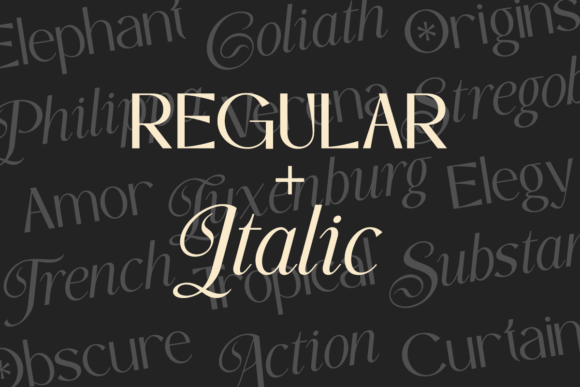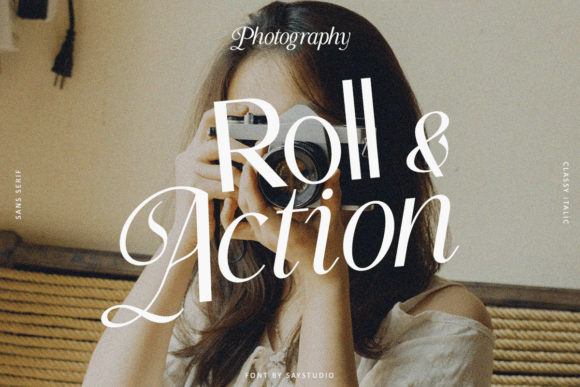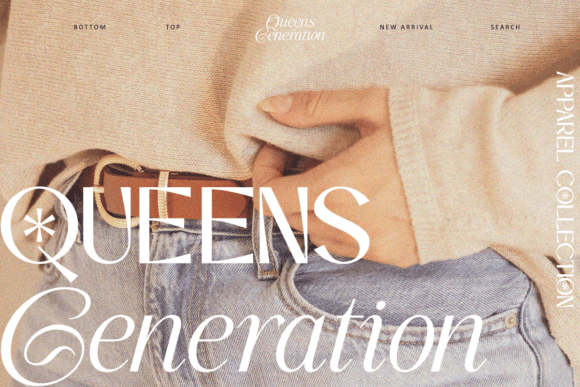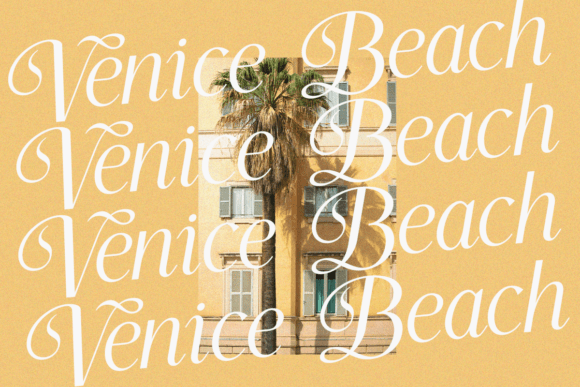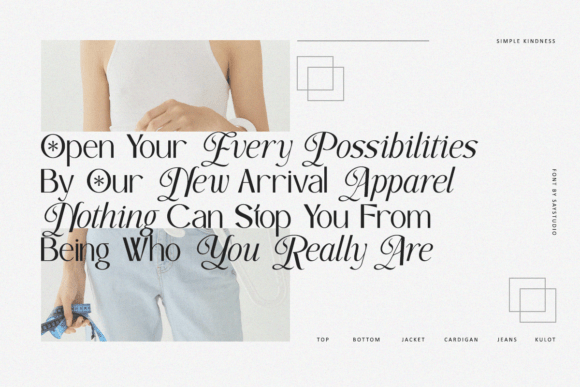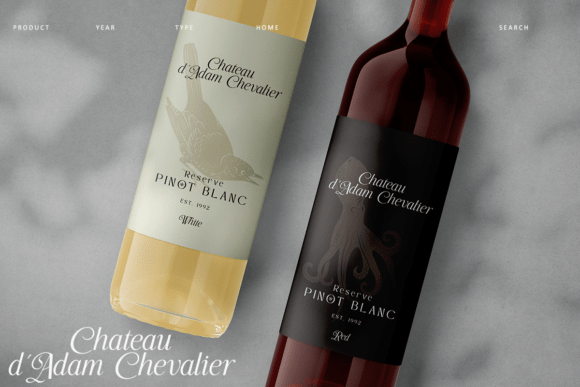
Introduction to Simple Kindness Font
Simple Kindness is modern sans serif with classy italic version.
Inspired by historical letterforms for its construction, this typeface also incorporates new and dynamic forms Simple Kindness has 2 styles: Roman and Italic uppercase form showing classy and unique character.
Key Features of Simple Kindness Font